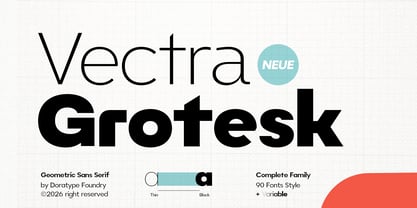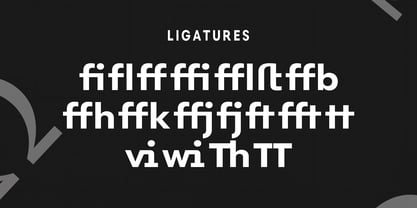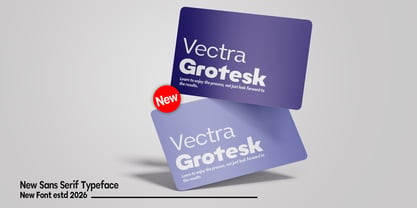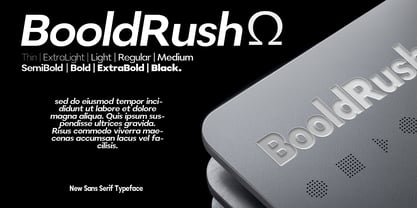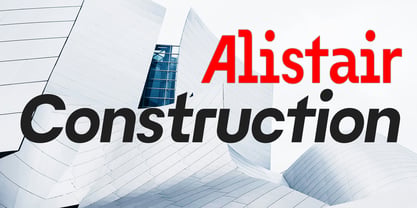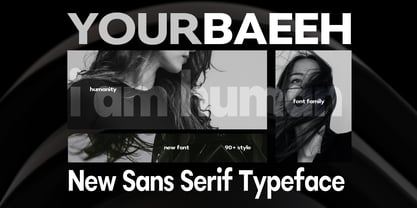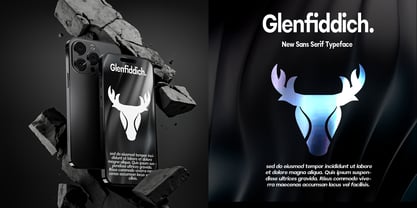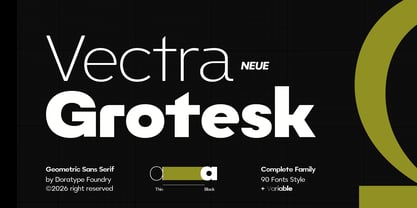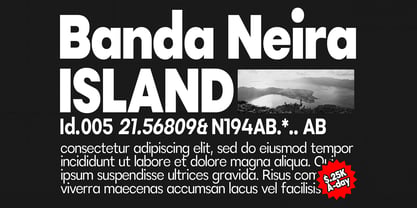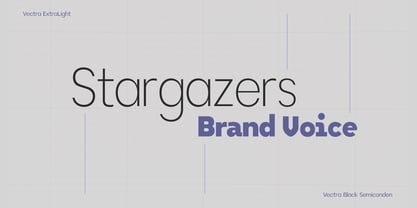
DTF Vectra Neue
by Dora Typefoundry
The DTF Vectra Neue Font Family was designed by Zahratul Laila and published by Dora Typefoundry. DTF Vectra Neue contains 91 styles and family package options. More about this family
Vectra Nueu Grotesk is a modern sans-serif font family characterized by a clean, bold, and minimalist geometric style. Its letterforms feature balanced proportions and a streamlined construction, resulting in a professional and contemporary aesthetic. The typeface conveys a modern, dynamic, and distinctive feel, making it suitable for a wide range of applications, including branding, editorial design, visual identity, and digital design.
Vectra Grotesk offers exceptional flexibility for establishing typographic hierarchies. Variable font support further expands its versatility, enabling precise and fluid weight transitions. This font family is ideal for logos, headlines, posters, packaging, websites, UI/UX, publications, and corporate identities that require a modern, impactful, and professional look.
Designers: Zahratul Laila
Foundry: Dora Typefoundry